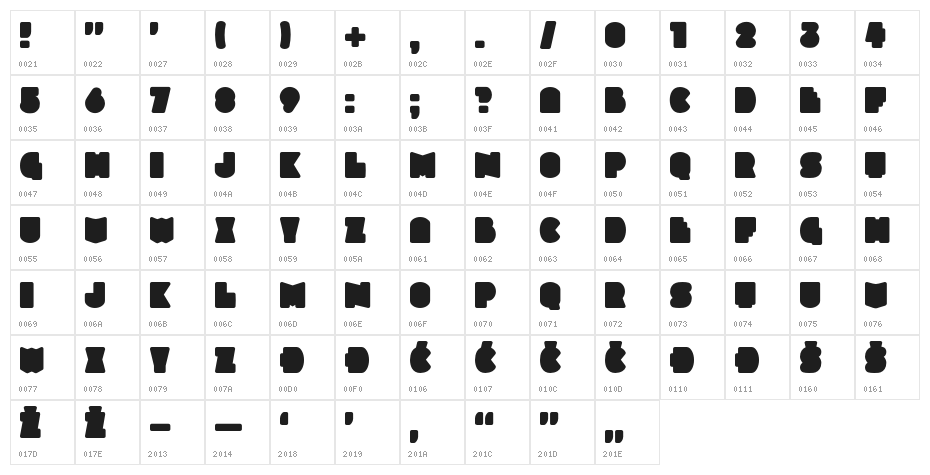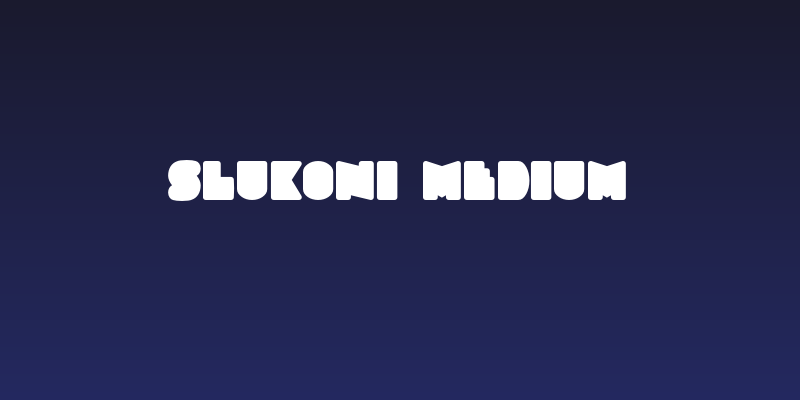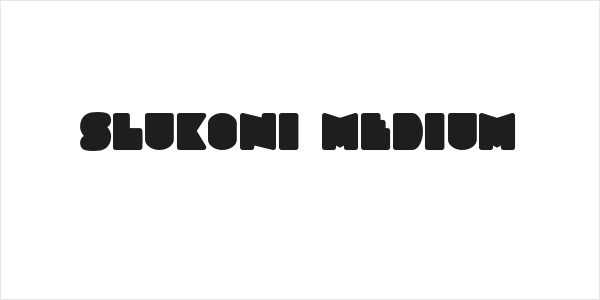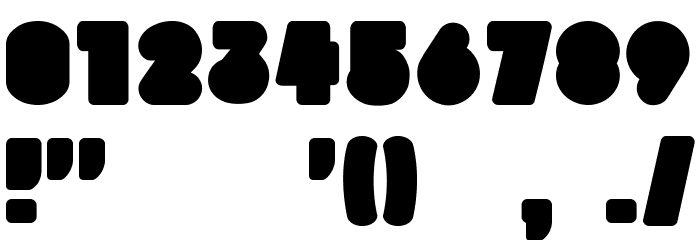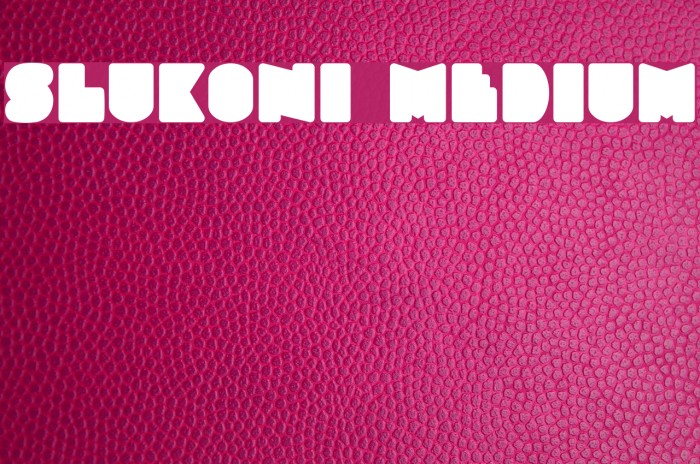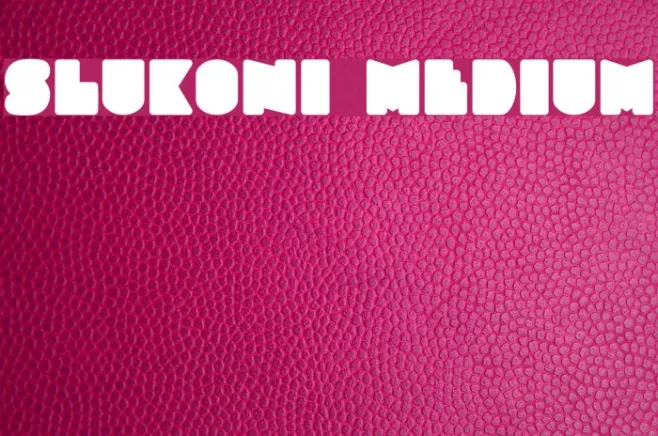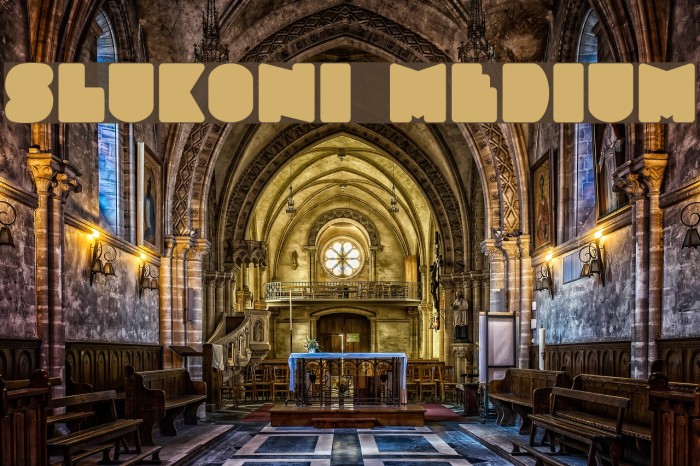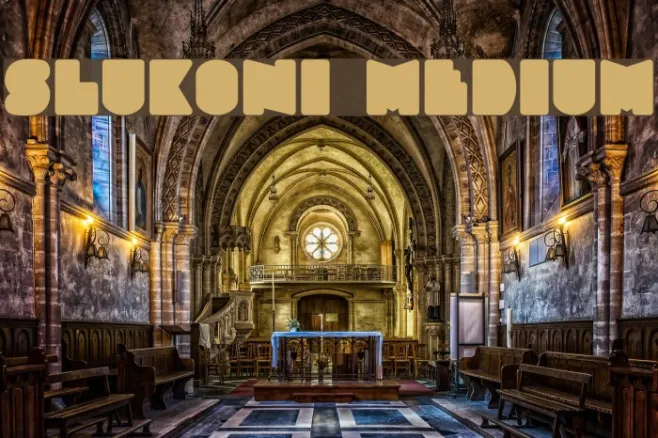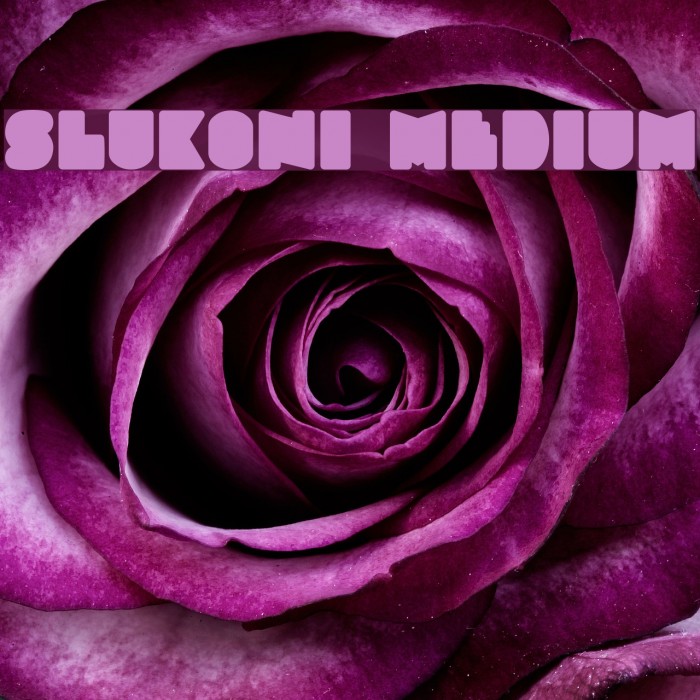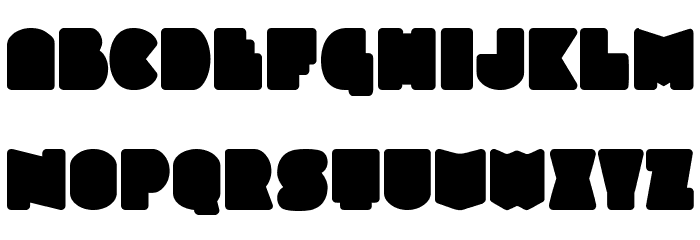
Slukoni Medium Font
Slukoni Medium Description
This font features bold, rounded characters with a playful and chunky appearance. The letters are uniformly thick, creating a strong visual impact. The style is reminiscent of retro designs, with a modern twist that makes it suitable for contemporary uses. The characters are closely spaced, enhancing the compact and cohesive look. Its boldness and unique shape make it ideal for attention-grabbing headlines or logos. The numbers and special characters maintain the same bold and rounded style, ensuring consistency across all elements.
| Proposed Projects | Ideal for branding, posters, children's books, and playful graphic designs. |